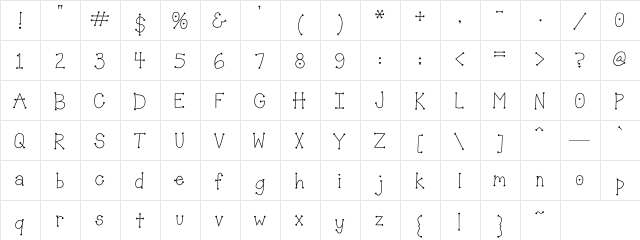
Scrap Hearts Regular Font Preview
Scrap Hearts Regular
Scrap Hearts Regular Font Details
Design Context for Scrap Hearts Typeface
Scrap Hearts is a composed and adaptable typeface that performs quietly and consistently across a wide range of design contexts.